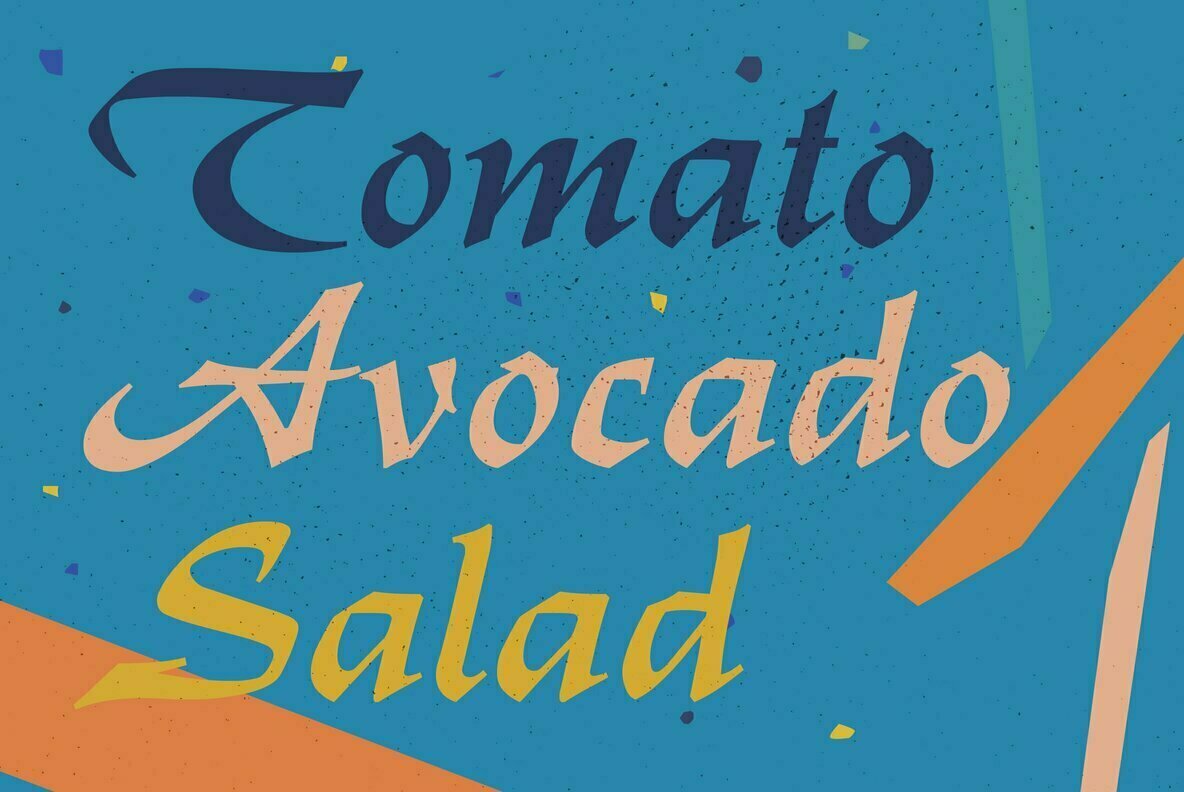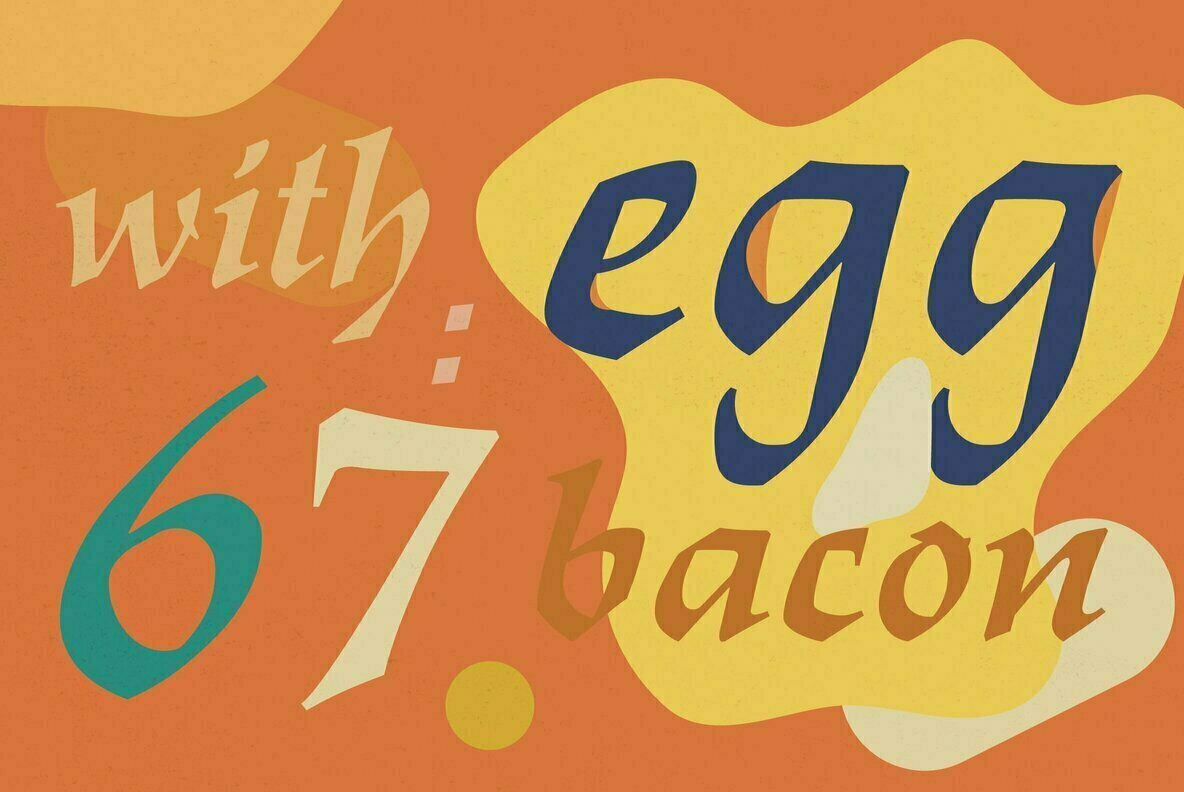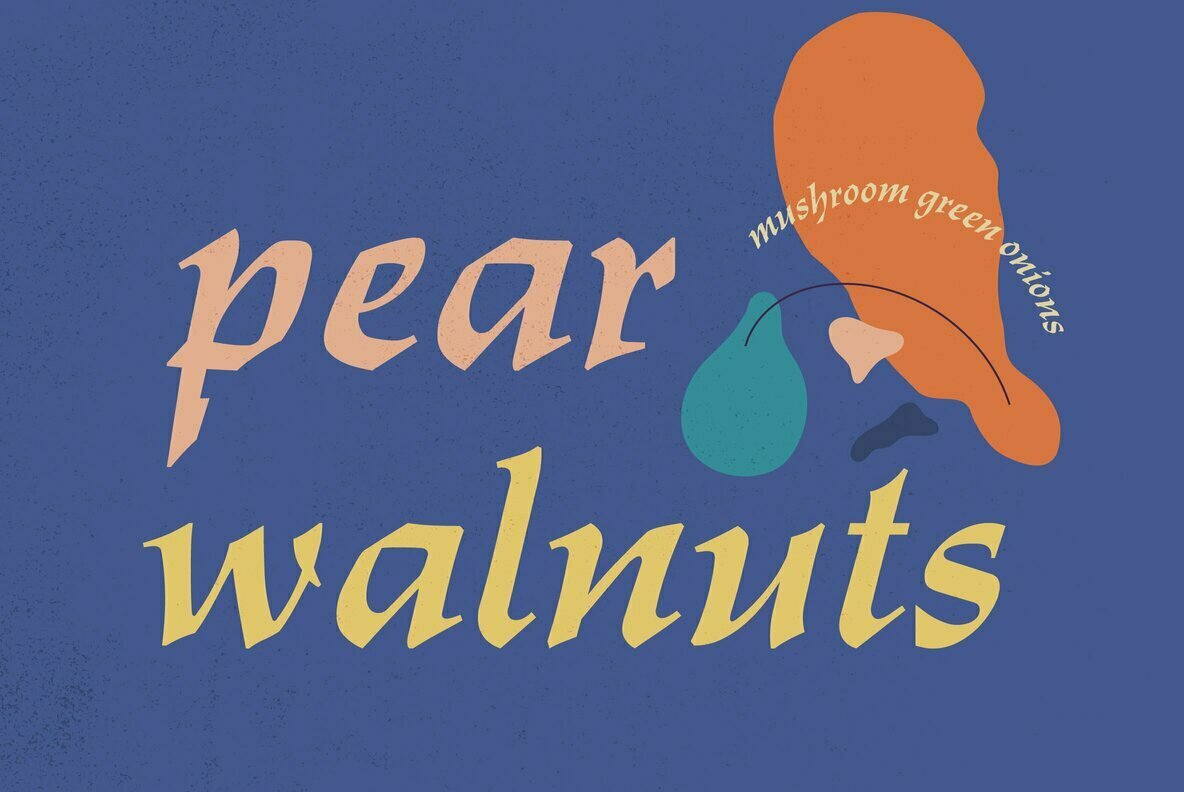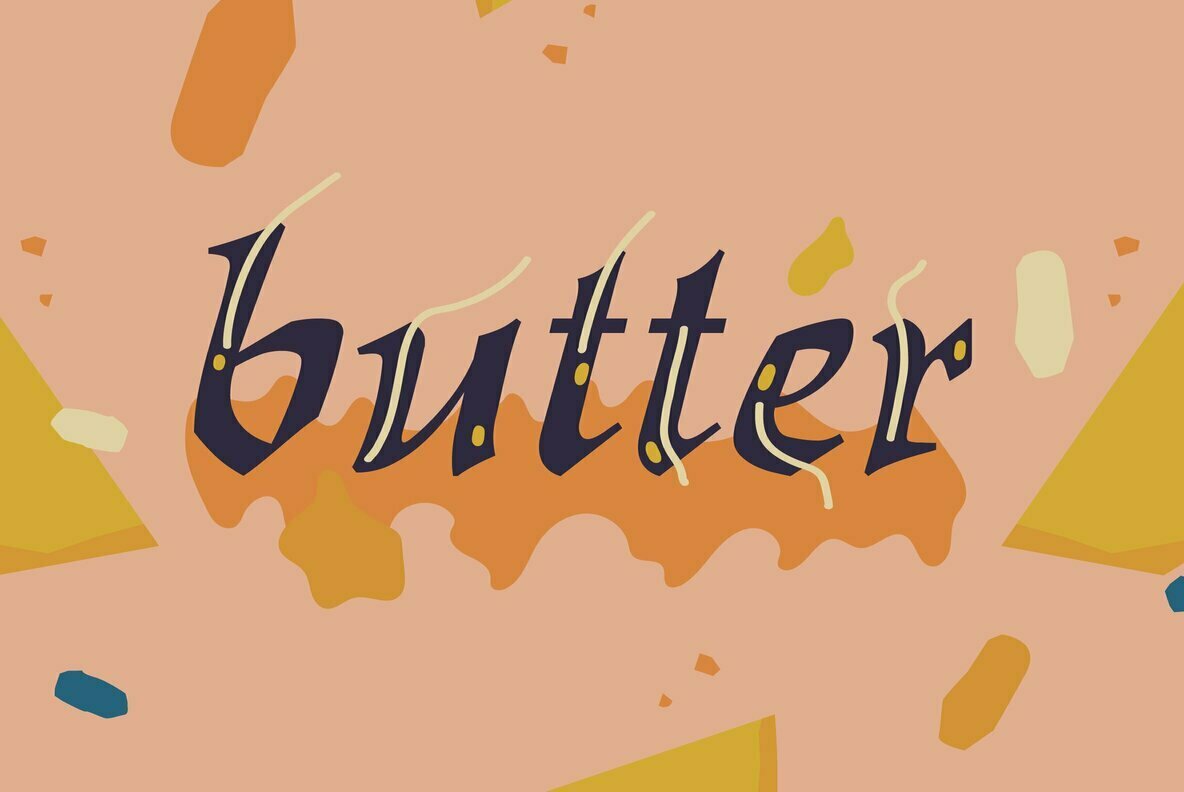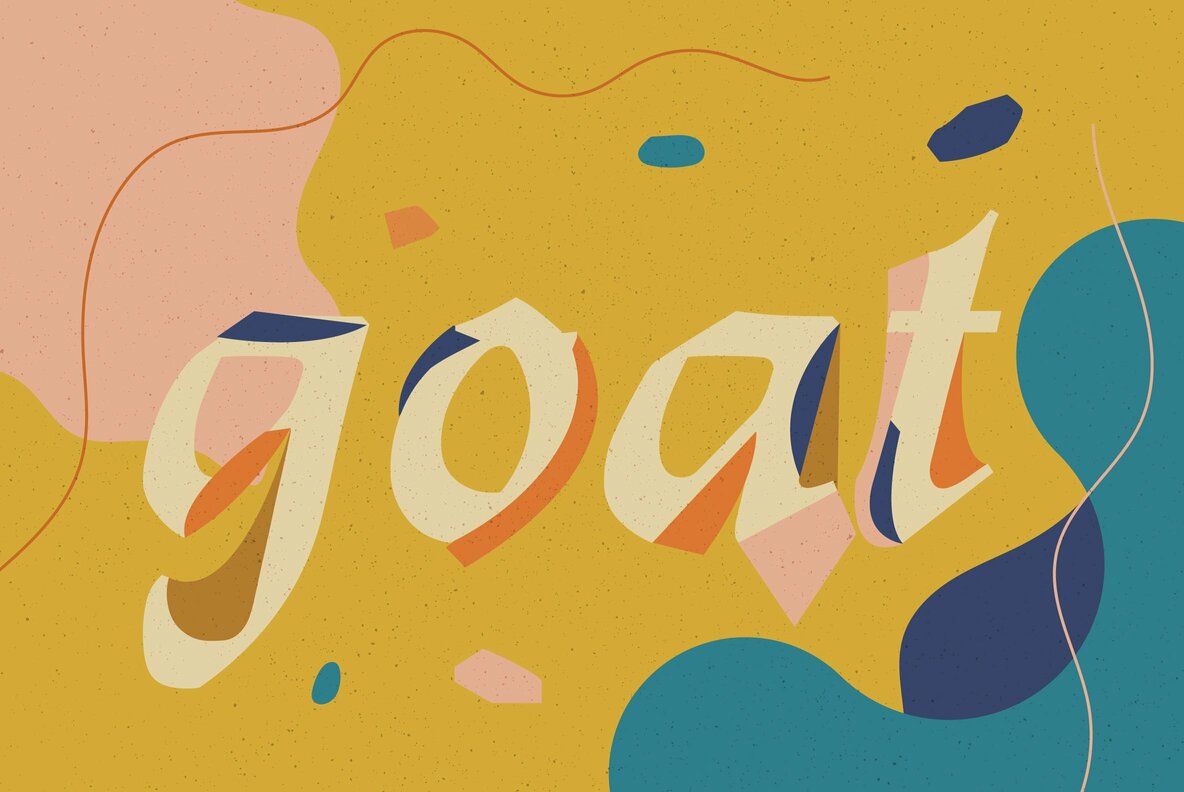
Turnier Font
Turnier Italic
G. G. Lange’s expressive italic ‚Derby‘ with its calligraphic touch has come to life again. Carefully redrawn and extended for multilingual usage, ‚Turnier‘ is an ideal font for ads, posters, book titles and much more.